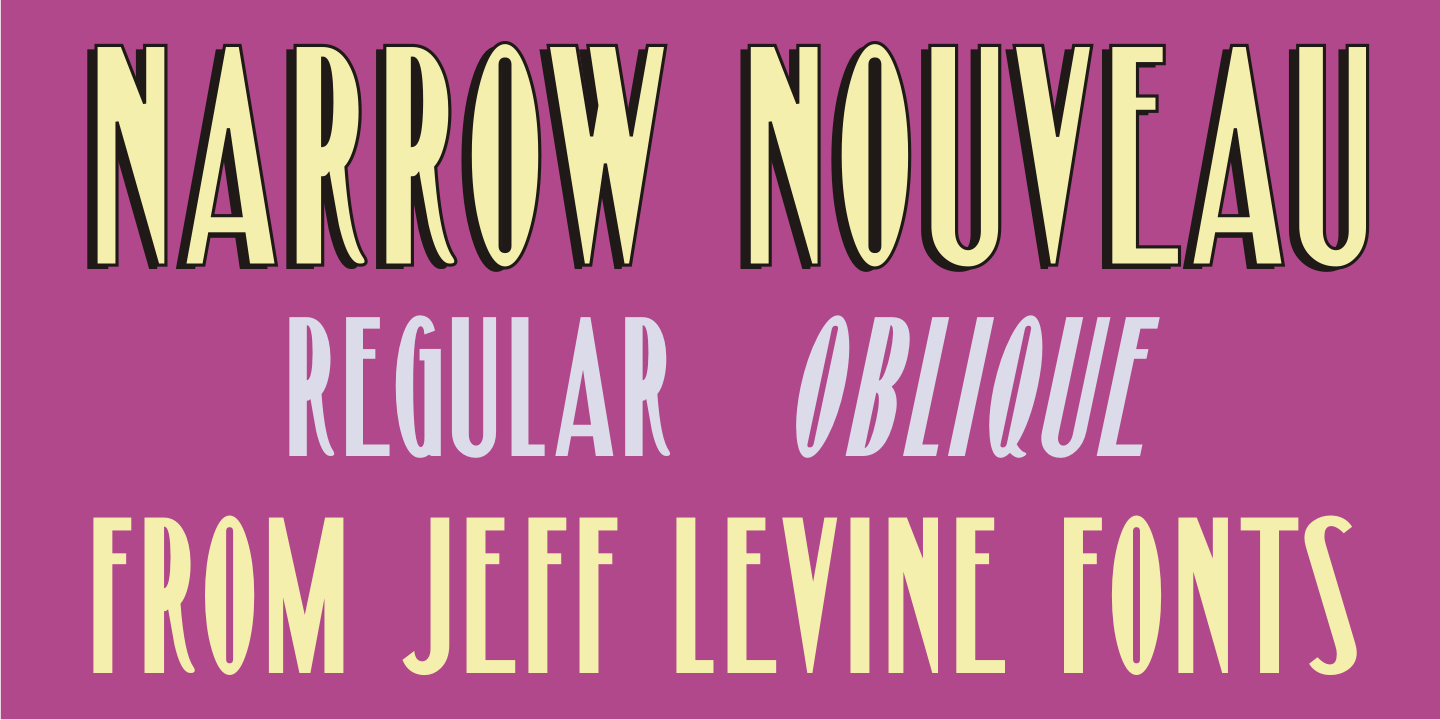
Narrow Nouveau
Narrow Nouveau JNL come from the hand lettered title on a 1907 song folio for George M. Cohan's 'The Talk of New York”, and is available in both regular and oblique versions.
Narrow Nouveau JNL Regular by Jeff Levine Fonts